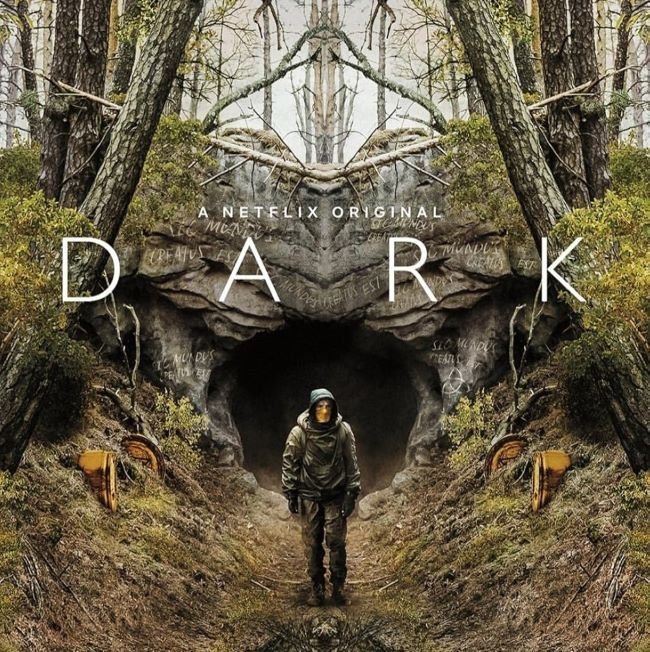
Dark font is Gill Sans — the humanist sans-serif designed by Eric Gill and first released by Monotype — deployed by Baran bo Odar and Jantje Friese’s 2017 Netflix German sci-fi series with a restraint so complete it communicates an entire philosophy in four letters and a completely black background.
The title appears for barely a moment before cutting to the next scene, which is precisely the point: Gill Sans’ warm yet rigorous letterforms, rendered stark white against absolute darkness, communicate that what follows will be told without comfort and that the viewer’s orientation in time, family, and causality will be systematically dismantled.